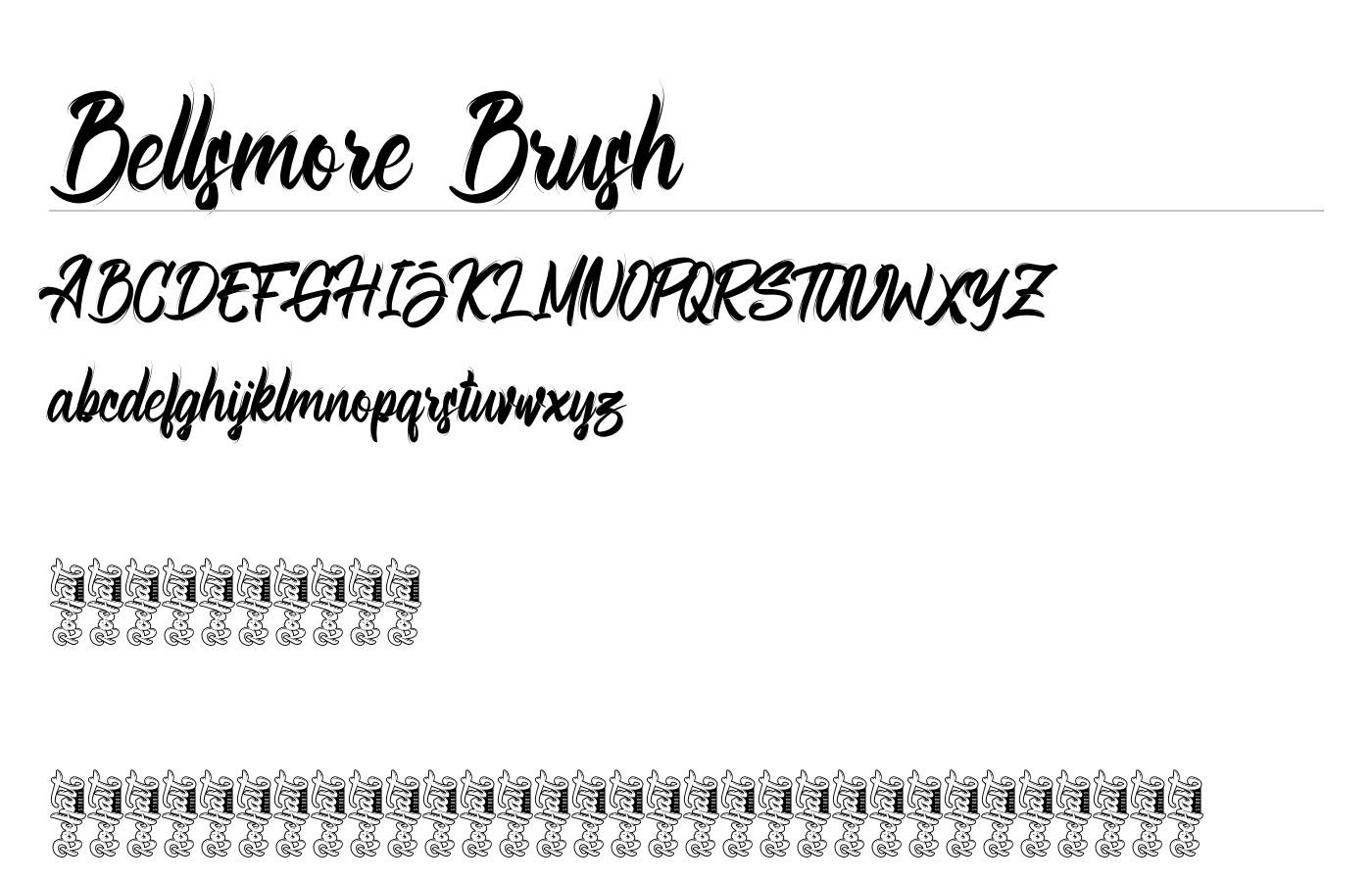
Bellsmore Brush is a lively, brush-script font with a bold, hand-painted look that combines both elegance and energy. Its fluid letterforms feature smooth, slightly irregular strokes that give a natural, artistic vibe, making it perfect for creative branding, invitations, and stylish headlines where a personal, handcrafted feel is desired. This font works especially well in expressive design projects that aim to convey warmth and dynamic movement.
Bellsmore Brush Font
About Bellsmore Brush Font